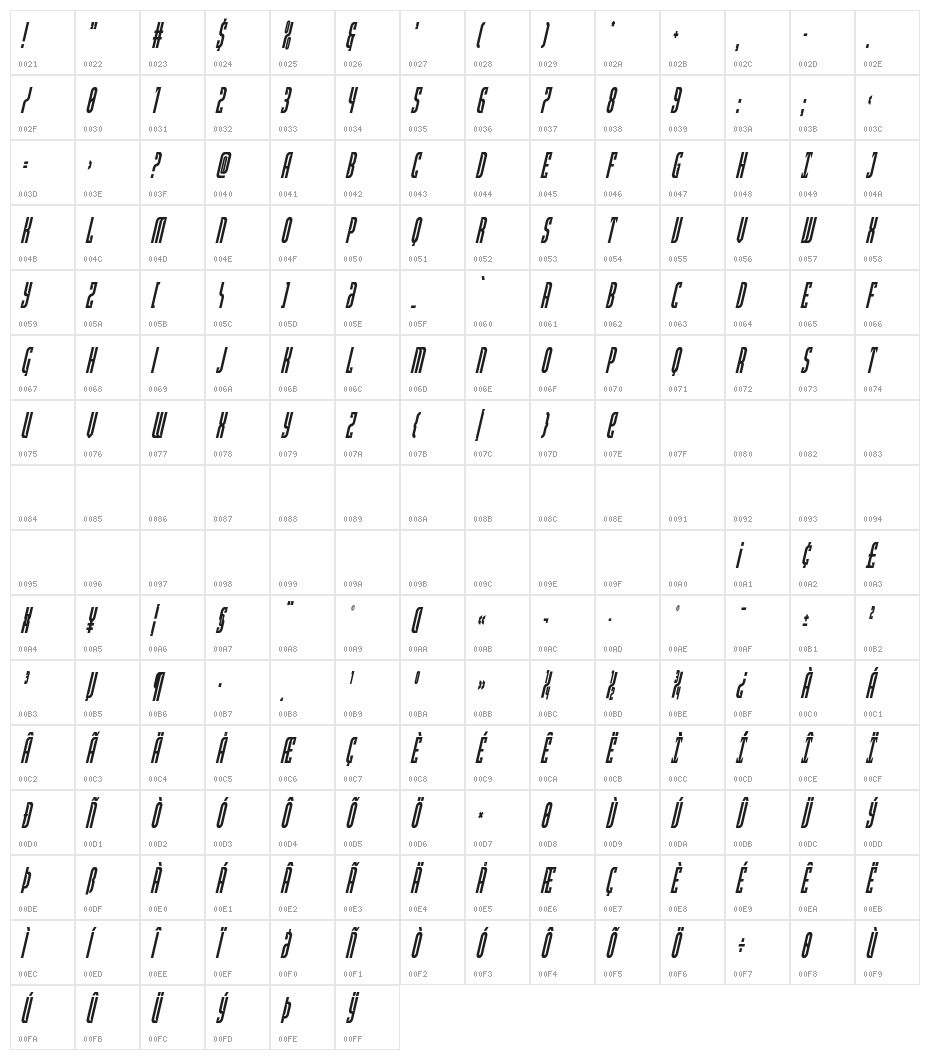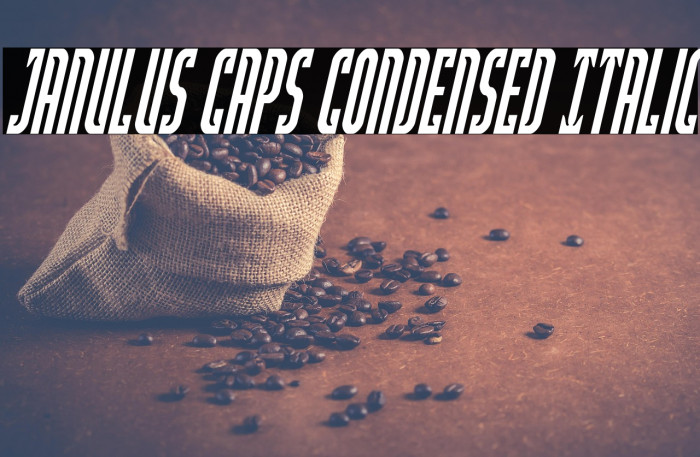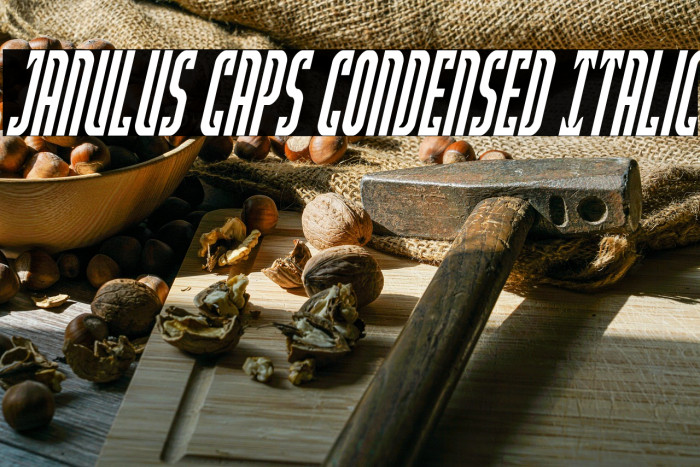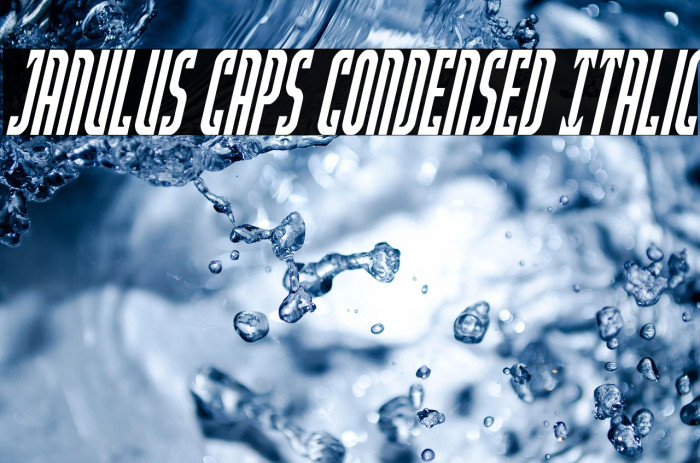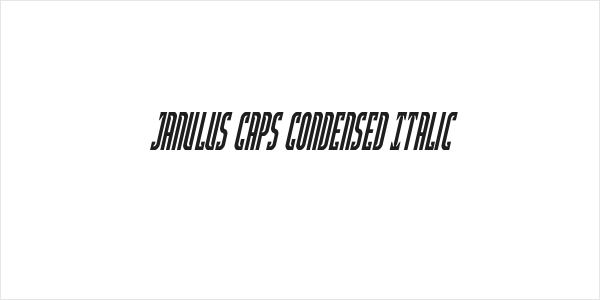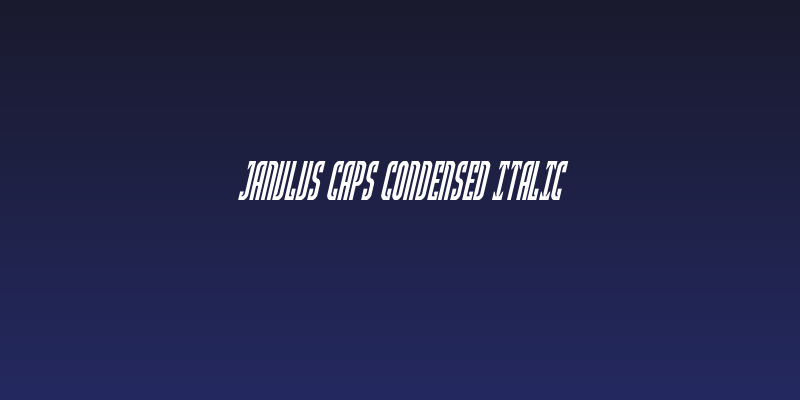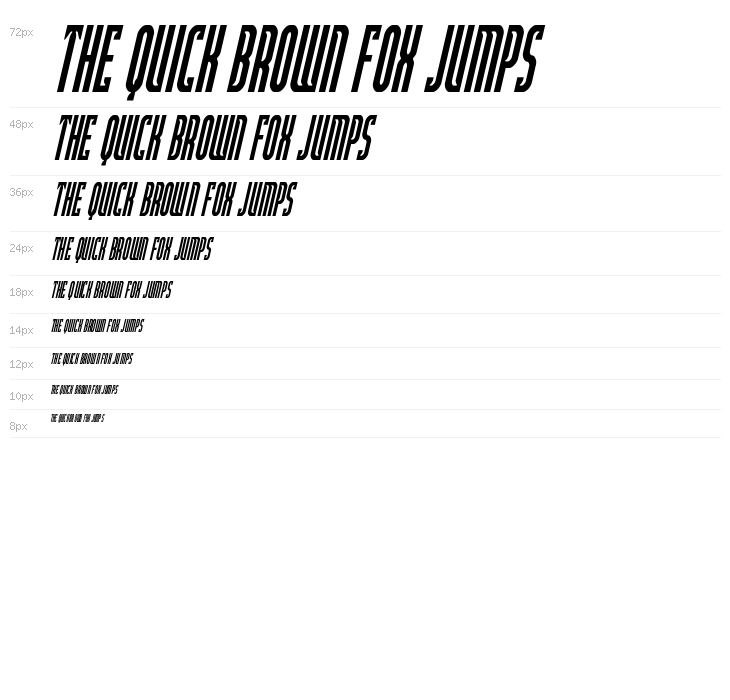
Janulus Caps Condensed Italic Font
Janulus Caps Condensed Italic Description
This font features a bold and dynamic style with a condensed and italicized form. The characters are elongated and slanted, giving a sense of motion and urgency. The uppercase and lowercase letters maintain a consistent height, contributing to a uniform appearance. The numbers and special characters are designed to match the overall aesthetic, with sharp angles and clean lines. This font's condensed nature allows for efficient use of space, making it suitable for headlines and titles where impact is essential. The italic slant adds a modern and edgy feel, enhancing its visual appeal.
| Proposed Projects | Ideal for sports branding, dynamic posters, modern advertisements, and impactful headlines. |